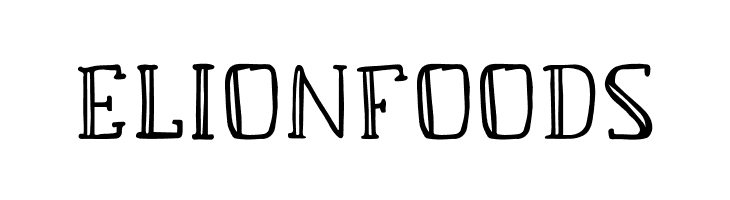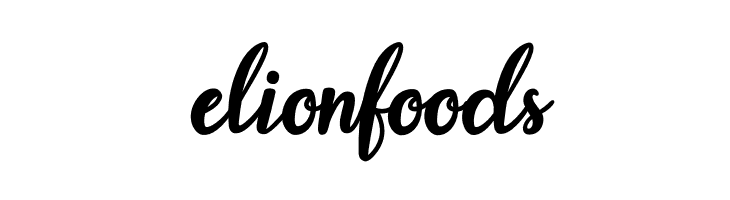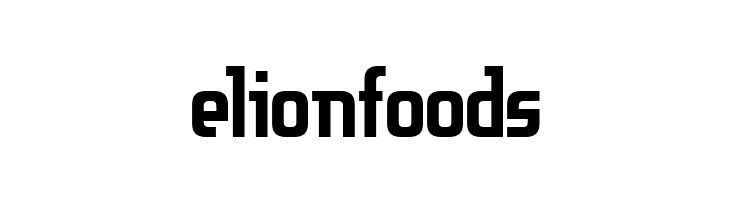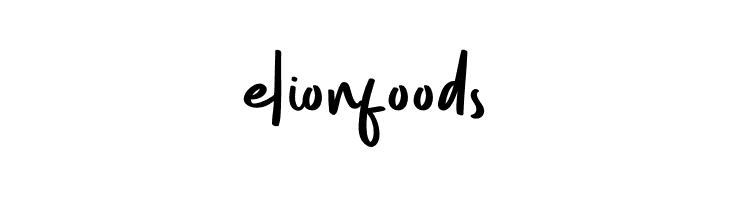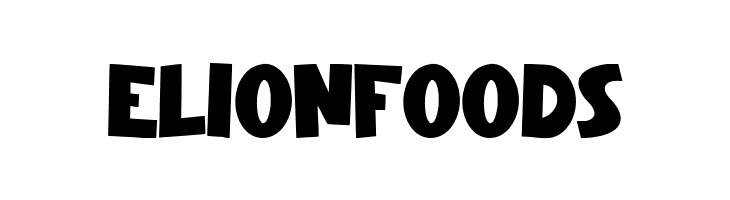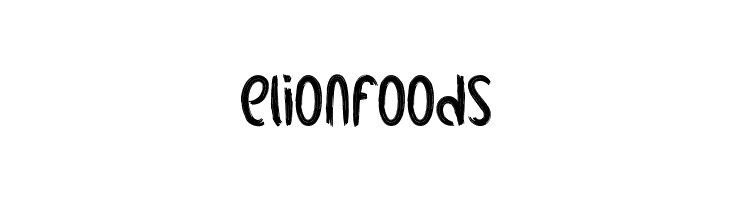
Bold, angular, and futuristic with an italicized slant.
A playful and elegant script font with fluid, connected strokes.
A playful, hand-drawn style font with rounded, flowing characters.
A bold, playful font with thick, rounded letterforms and unique cutouts.
A bold, geometric font with a modern and assertive style.
A playful, casual handwritten font with fluid strokes and a dynamic appearance.
A playful, hand-drawn font with quirky, uneven strokes and dynamic letterforms.
A flowing, cursive font with elegant loops and flourishes.
A playful, modern handwritten font with a casual and flowing style.
A playful, handwritten font with dynamic strokes and a casual style.